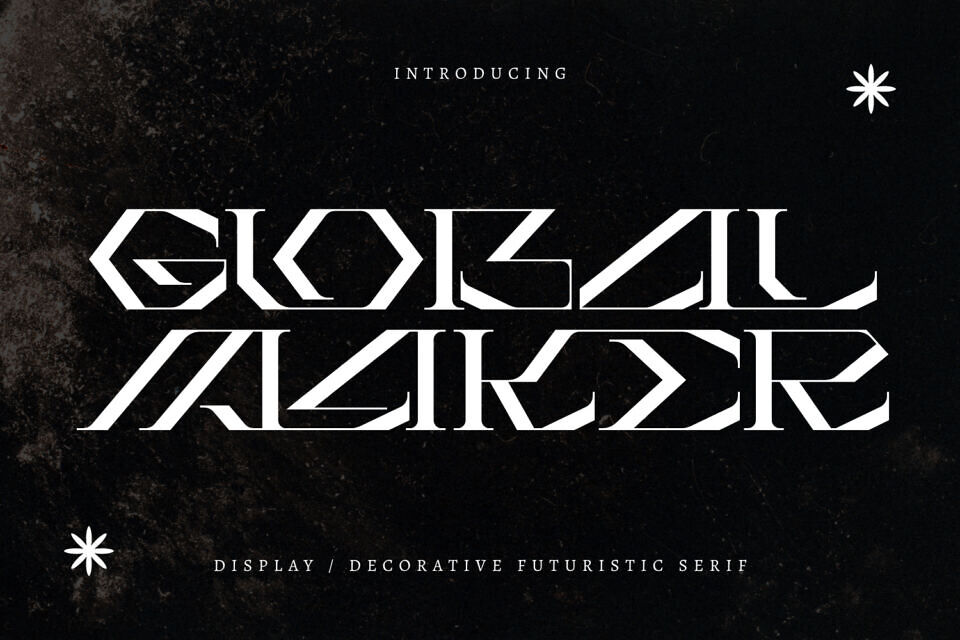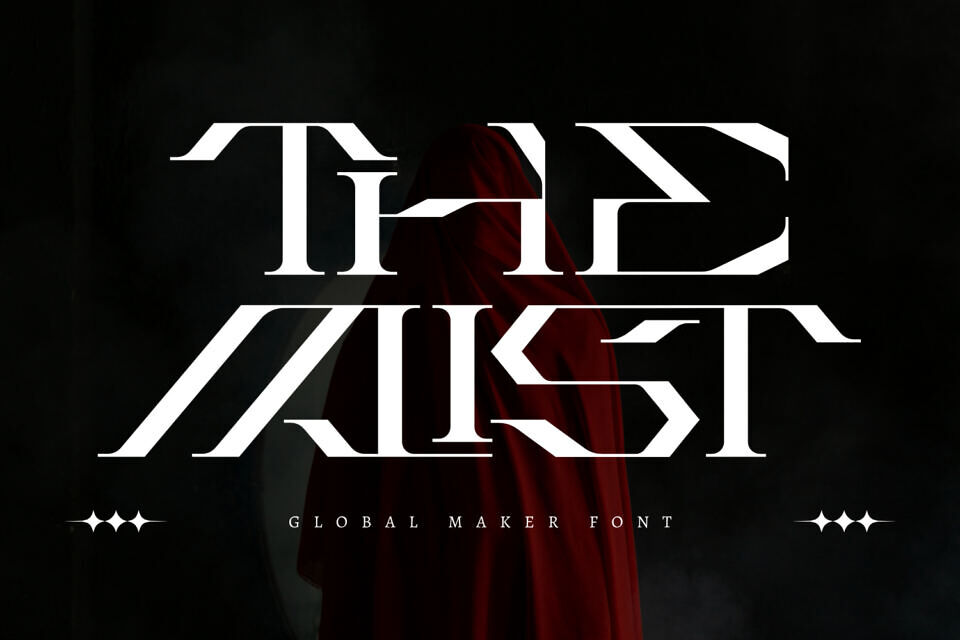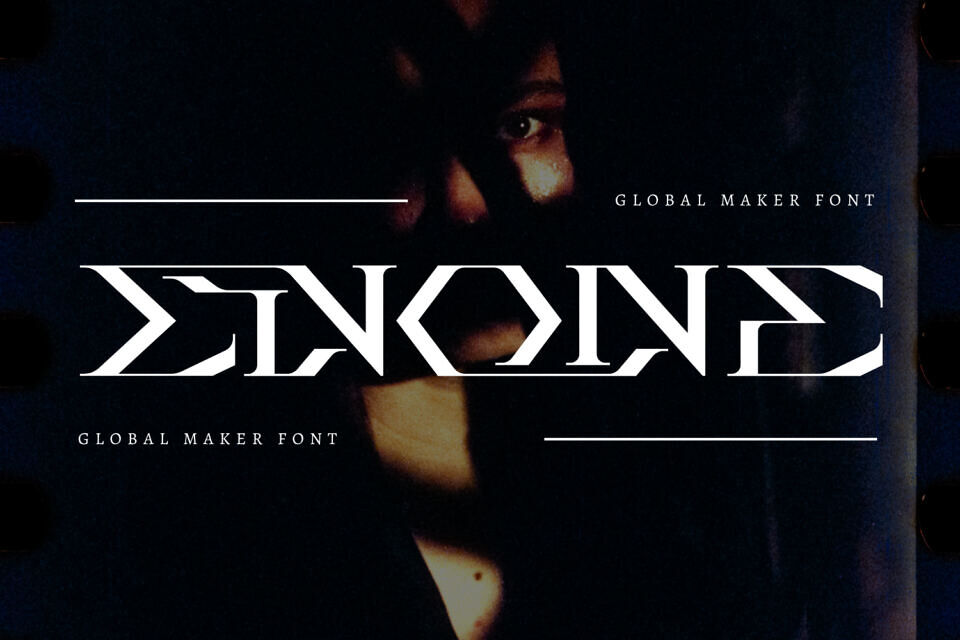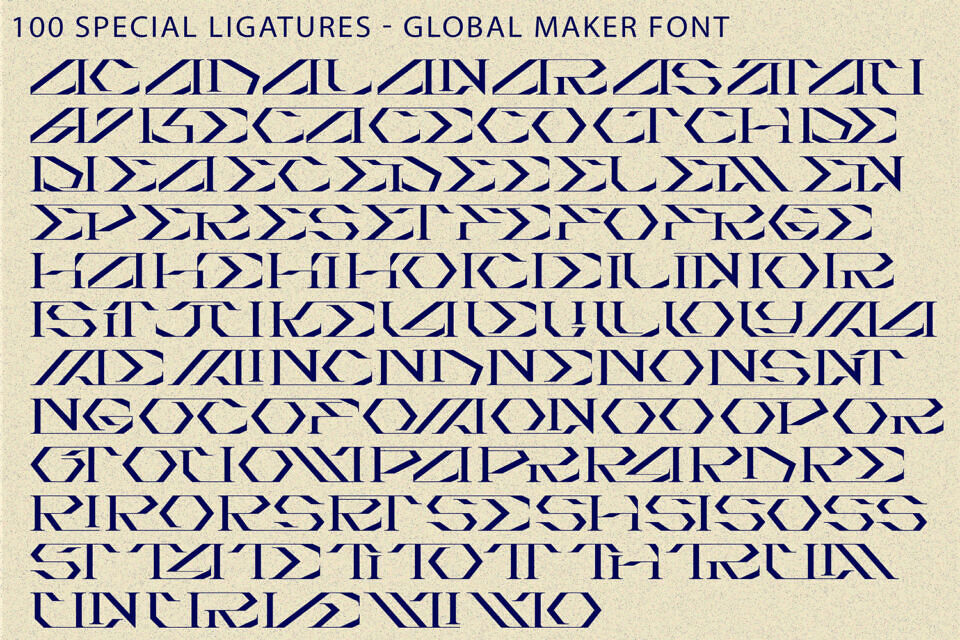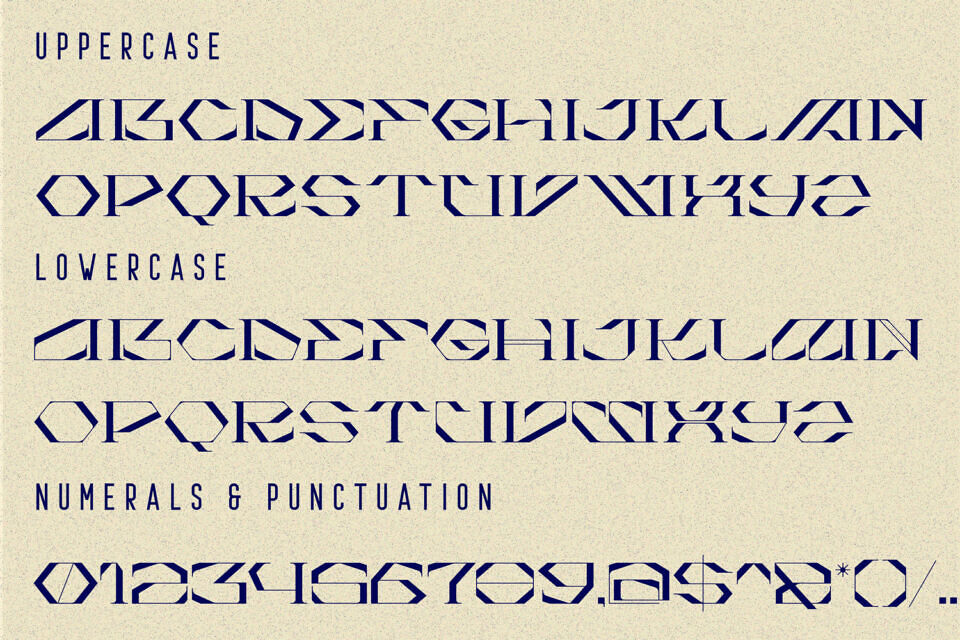
Global Maker is a futuristic angular display serif font that blends classic sophistication with sharp sci-fi energy. Designed with strong geometric cuts, wide proportions, and refined high-contrast letterforms, this typeface delivers a bold cinematic presence with a modern technical edge.
Its distinctive angular details and sleek serif-inspired structure create a powerful visual rhythm, making Global Maker perfect for movie titles, gaming logos, technology branding, sci-fi posters, premium packaging, and futuristic editorial design.